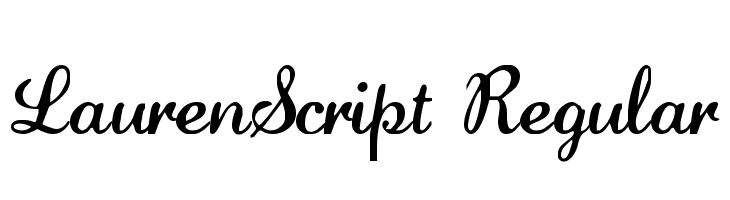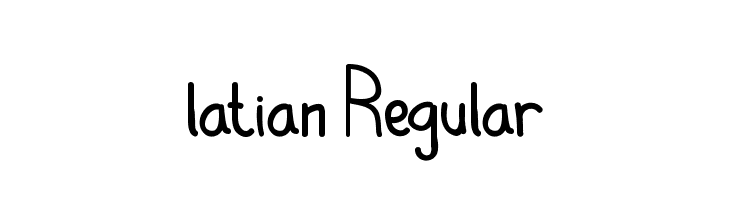
An elegant script font with flowing, connected strokes and graceful curves.
A playful, hand-drawn font with rounded edges and a casual style.
A playful, handwritten font with irregular strokes and a casual style.
A flowing, elegant cursive font with ornate uppercase and smooth lowercase letters.
A lively, handwritten font with fluid, organic strokes and a playful yet sophisticated flair.